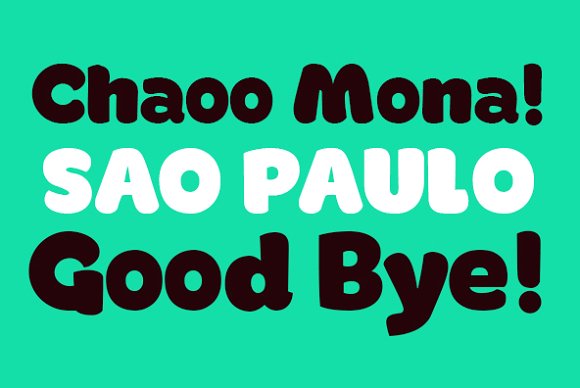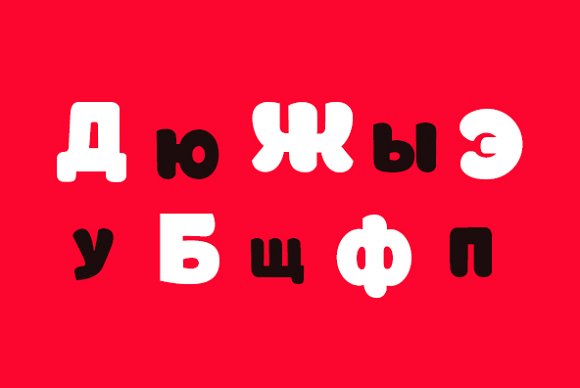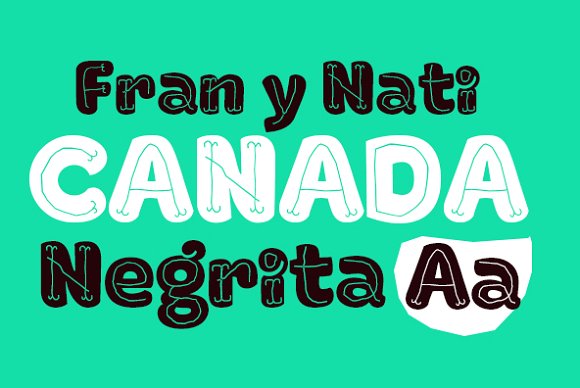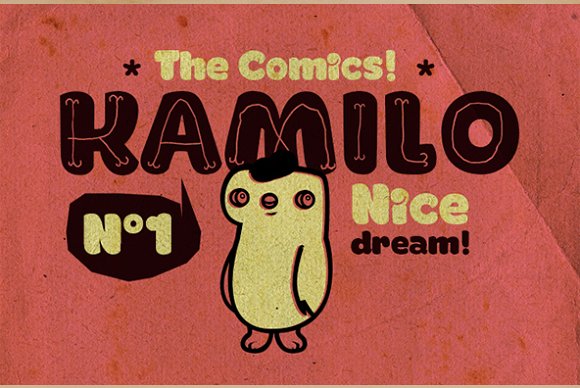
Introduction to Koniblack Font
Have you ever been stuck in the middle of a creative project, desperately searching for the perfect font to bring your vision to life? The hunt can be long and arduous, but what if I told you that a game-changing design resource is just a click away? Enter the Koniblack Font, a sleek and sophisticated typeface that’s about to revolutionize the way you approach typography.
This stunning font, crafted by the talented Rodrigo Typo, is a must-have for any designer looking to elevate their work. With its transparent background and high-quality design, the Koniblack Font is the perfect addition to any creative project. And the best part? It’s available for free download, making it an invaluable resource for designers of all levels.
Key Features of Koniblack Font
- High-quality, modern font design perfect for creative projects and professional use
- Features a large character set with extended language support for international design projects
- Unique and stylish design elements make it an ideal choice for creative projects and branding materials
Honest Review: Koniblack Font
I recently stumbled upon the Koniblack Font while searching for a high-quality font to enhance my creative project. After giving it a try, I’m excited to share my honest review.
- High quality and crisp design: The Koniblack Font is incredibly clear and sharp, making it perfect for use in a variety of design applications.
- Limited character set: The Koniblack Font is a relatively simple font with a limited character set, which may not be ideal for designers who require a wide range of special characters.
- Not suitable for large-scale use: While the font is great for small-scale design projects, it may not be the best choice for large-scale use due to potential font rendering issues.
Overall, I’m impressed with the Koniblack Font’s design quality and the convenience of its free download. While it may have some limitations, it’s an excellent addition to any designer’s toolbox, especially for small-scale creative projects.
Tips for Getting the Most Out of Koniblack Font
To get the most out of the Koniblack Font, use it in conjunction with other design resources to create a cohesive and high-quality design. Experiment with different font sizes, styles, and colors to add depth and interest to your design.
The Koniblack Font is perfect for a variety of creative projects, including logos, branding materials, and marketing materials. Its transparent background makes it ideal for use in digital design projects, such as website design and social media graphics.
Q: Is the Koniblack Font available in different weights and styles?
Yes, the Koniblack Font family includes multiple weights and styles, ranging from light to bold, as well as italic and bold-italic variants. This allows designers to create a consistent visual identity across different design elements and applications.